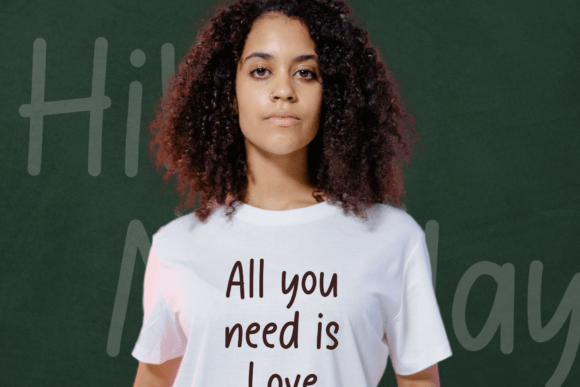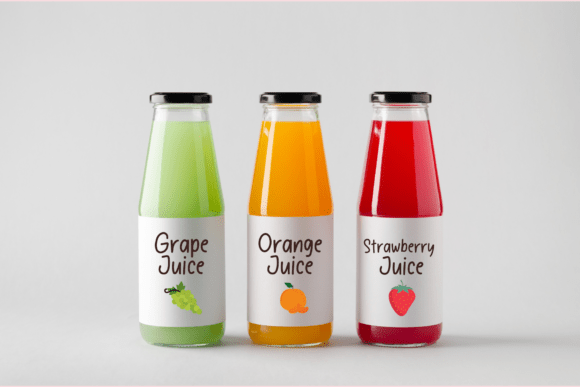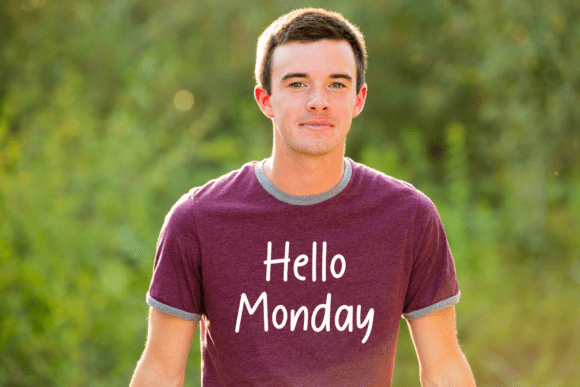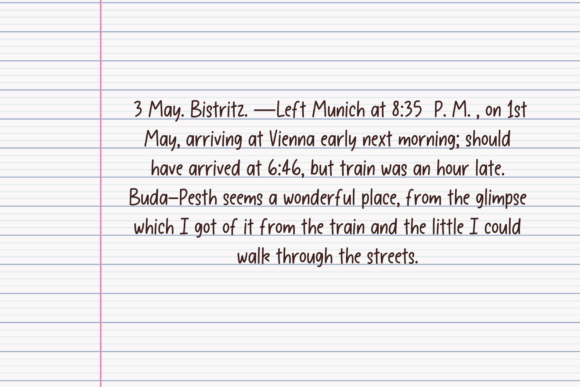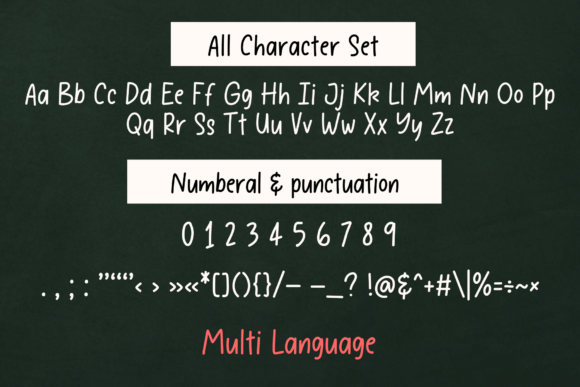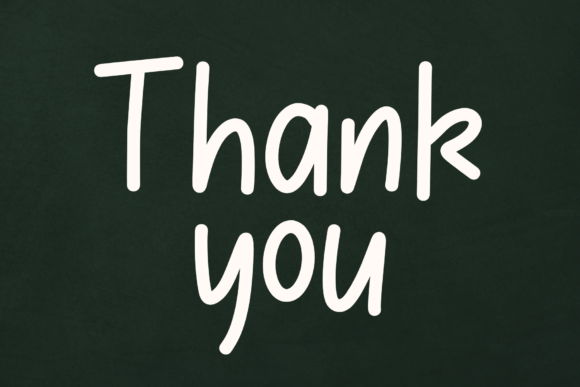
The Perfect Blend of Whimsy and Authenticity: Bouncy Notes Font
Have you ever been brainstorming ideas for a project and suddenly, a spark of creativity hits you? Maybe it’s a color palette, a typography choice, or a unique design element that sets your project apart. For many designers, the right font can be that spark that brings their vision to life. And for those looking to add a playful touch to their work, the Bouncy Notes Font is an ideal choice.
Bouncy Notes Font is a charming handwritten font that exudes playfulness and authenticity, making it perfect for a wide range of projects, from blog posts and logos to branding and invitations. With its unique charm, this font is a valuable asset for designers seeking to add a personal touch to their work.
Bouncy Notes Font Key Features
- Font Family: Bouncy Notes is a fun, handwritten font designed for casual and creative projects.
- Unique Characteristics: The font features a playful, bouncy feel with irregular letterforms, making it perfect for adding a touch of whimsy to your designs.
Bouncy Notes Font Review
First off, I love the unique personality of Bouncy Notes Font ✨. The playful, handwritten style is perfect for creating a friendly and approachable atmosphere in digital content. The font is well-suited for headings and titles, adding a touch of whimsy to any design. The letterforms are also surprisingly legible, making it easy to read even in smaller sizes.
Another great aspect of Bouncy Notes Font is its versatility ✨. It comes in a range of weights and styles, from light and cursive to bold and chunky. This makes it easy to create a cohesive look and feel across different design elements.
- ⚠️ The font may not be the best choice for formal or professional content, as its playful nature may come across as unprofessional.
- ⚠️ Some of the letterforms can be a bit irregular, which may not appeal to designers who prefer more precise typography.
Overall, I think Bouncy Notes Font is a great addition to any designer’s toolkit ✨. While it may have some limitations, its unique personality and versatility make it a great choice for creating engaging and eye-catching designs.
Tips for Getting the Most Out of Bouncy Notes Font
Use the Bouncy Notes Font in conjunction with other creative fonts to add visual interest.
Experiment with different font sizes and colors to create a unique and eye-catching design.
Use the font to add a playful touch to headings, titles, or body text in a variety of contexts.
Bouncy Notes Font is ideal for:
Children’s books and educational materials.
Playful marketing materials and advertisements.
Wedding invitations and party decorations.